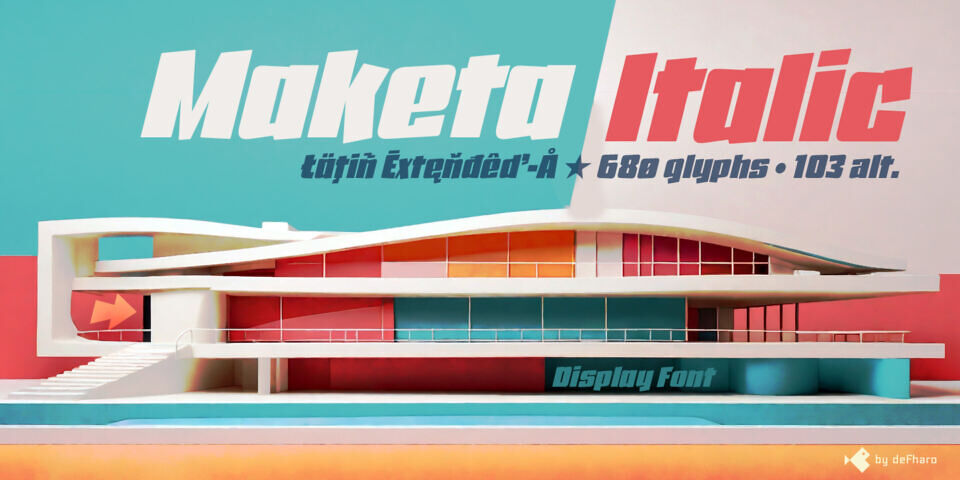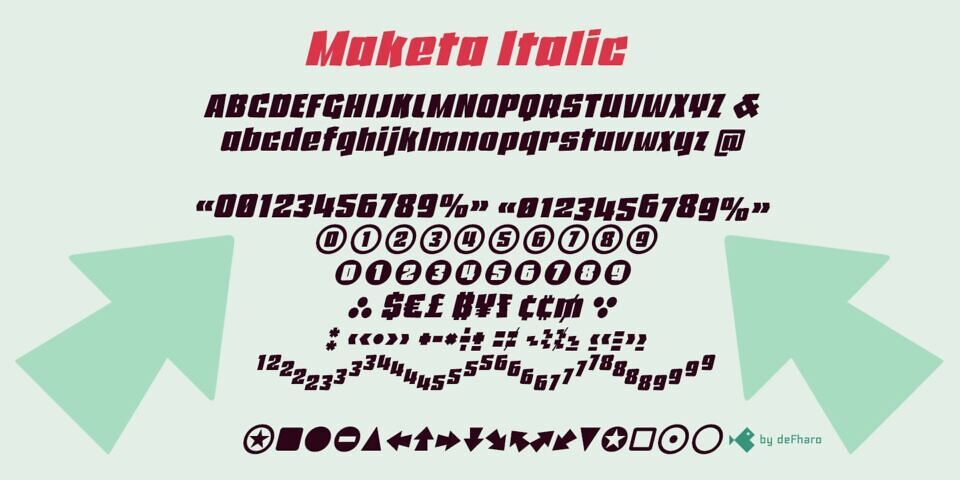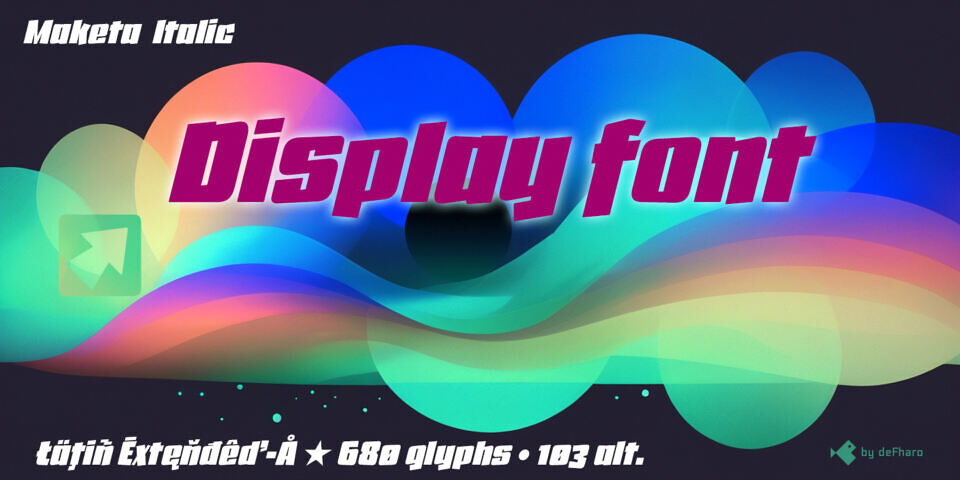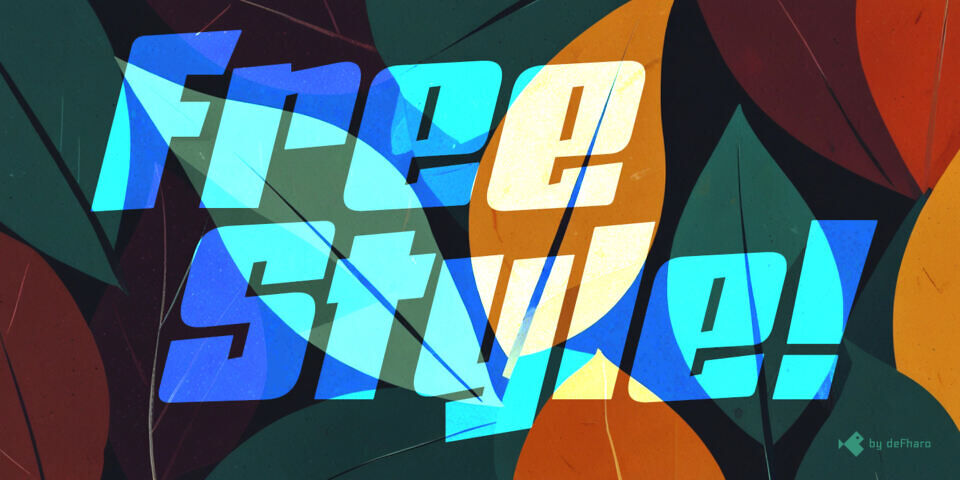
Maketa Italic Font
If you’re looking for a typeface that combines impact, fun, and sophistication, Maketa Display is the perfect choice. Available in Regular and Italic (free version), it’s ready to take your designs to the next level.
This isn’t just a typeface—it’s a statement of energy, dynamism, and joy, a celebration of vibrant and contemporary design. With a bold structure, strong contrasts, and a fresh, upbeat style, Maketa is the ideal choice for projects that aim for visual impact.